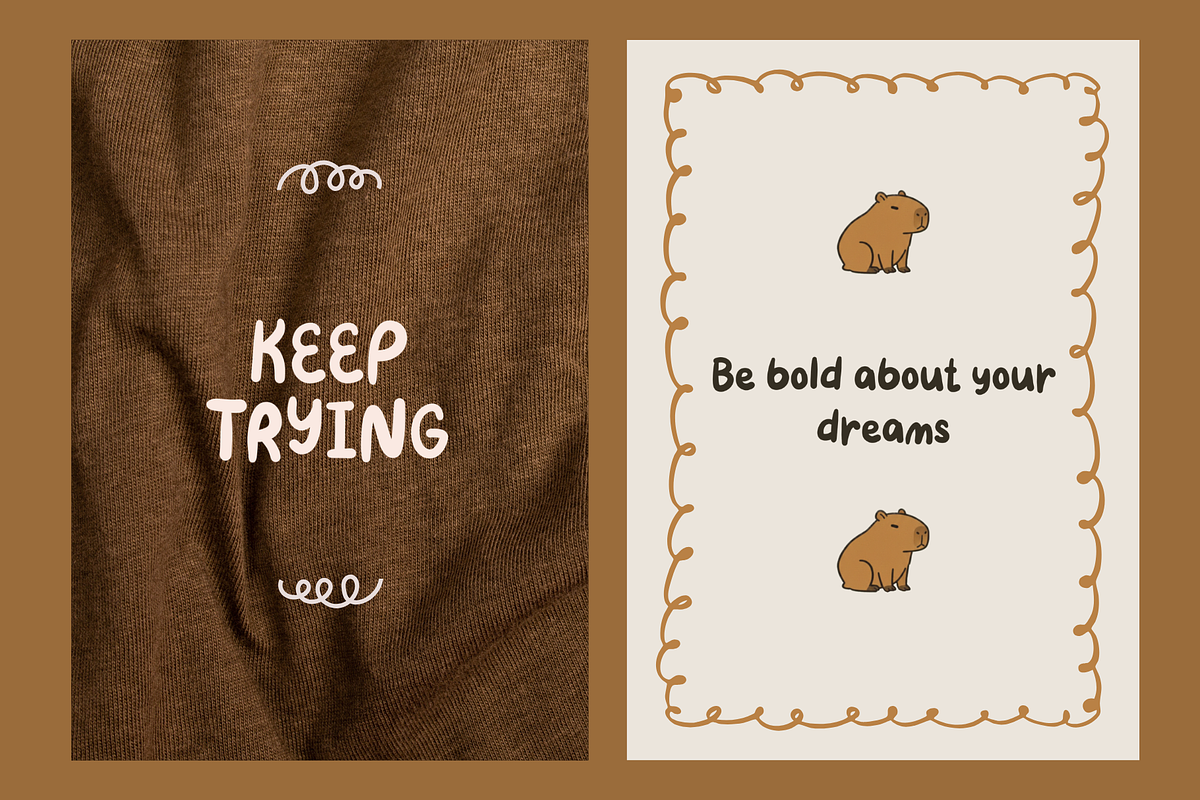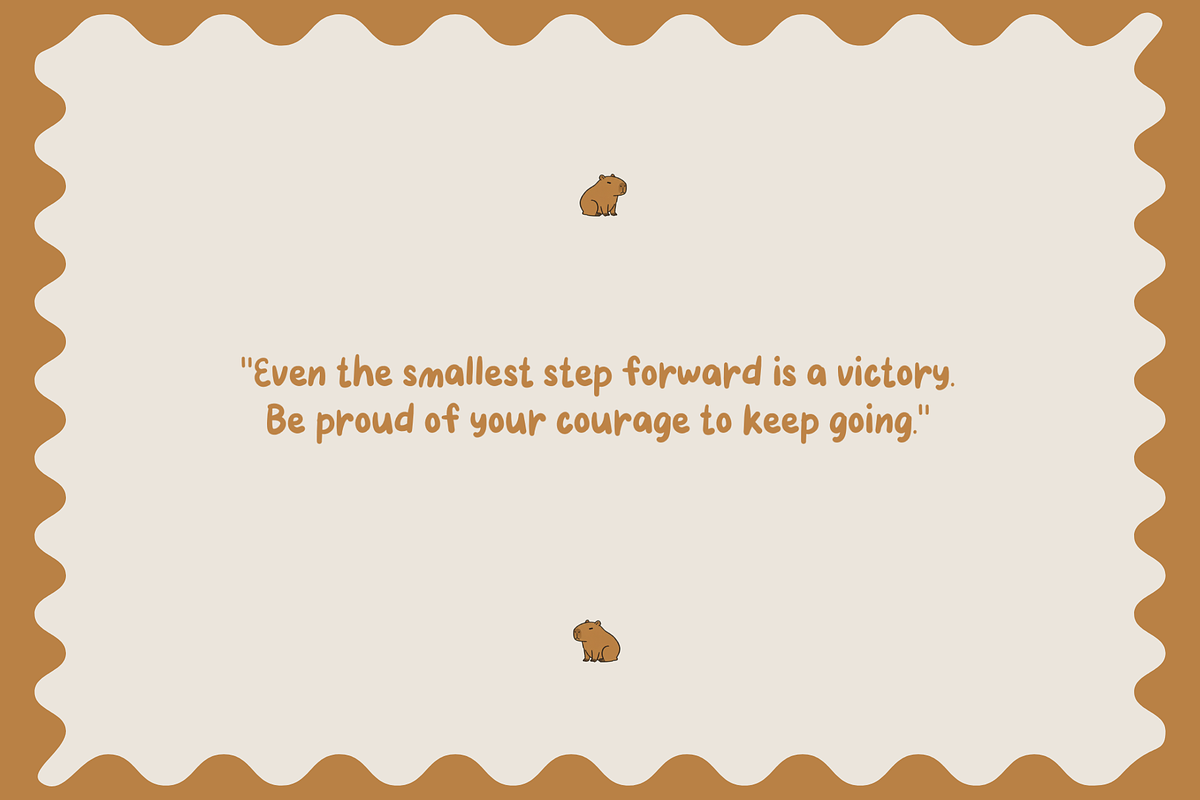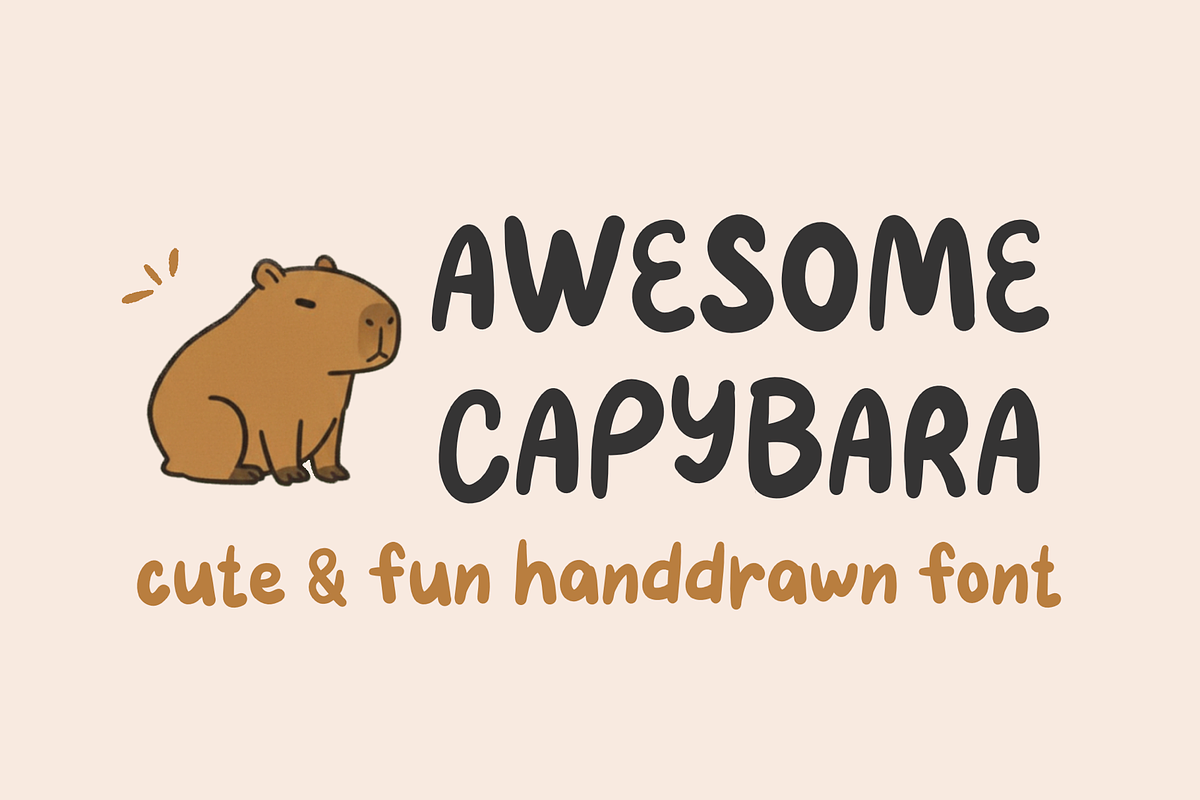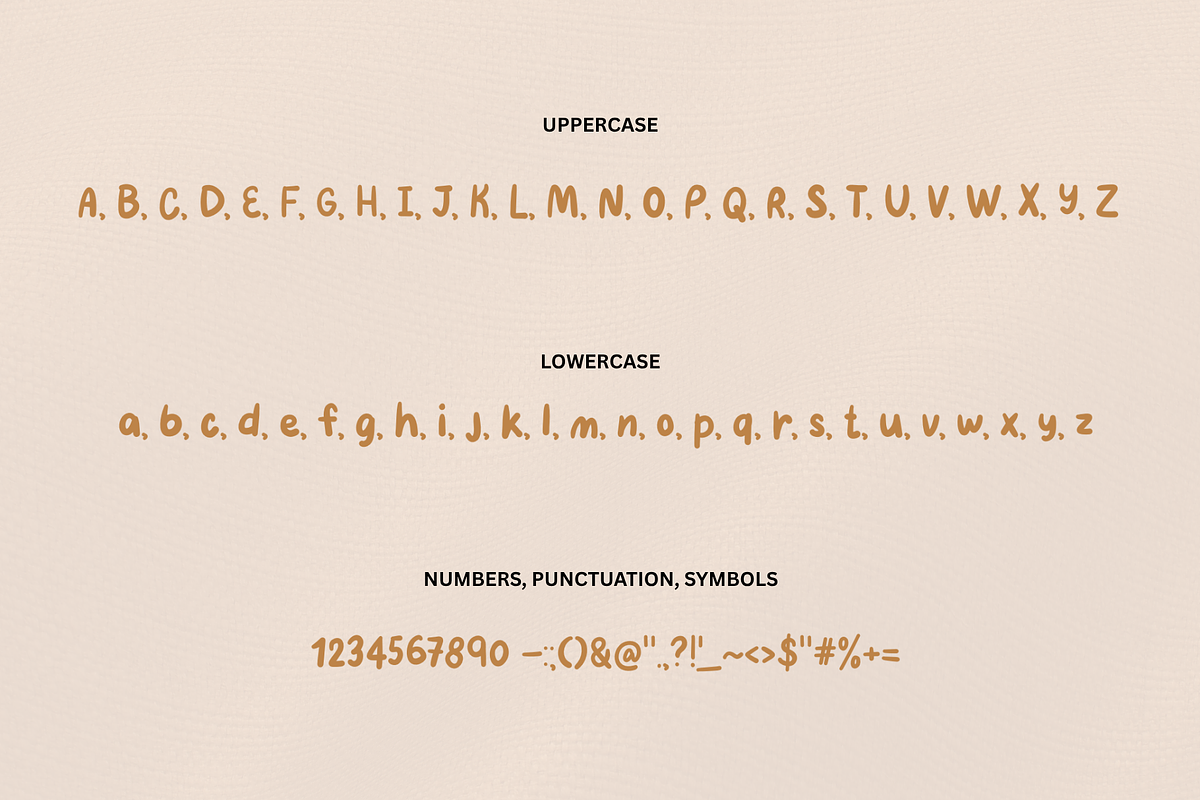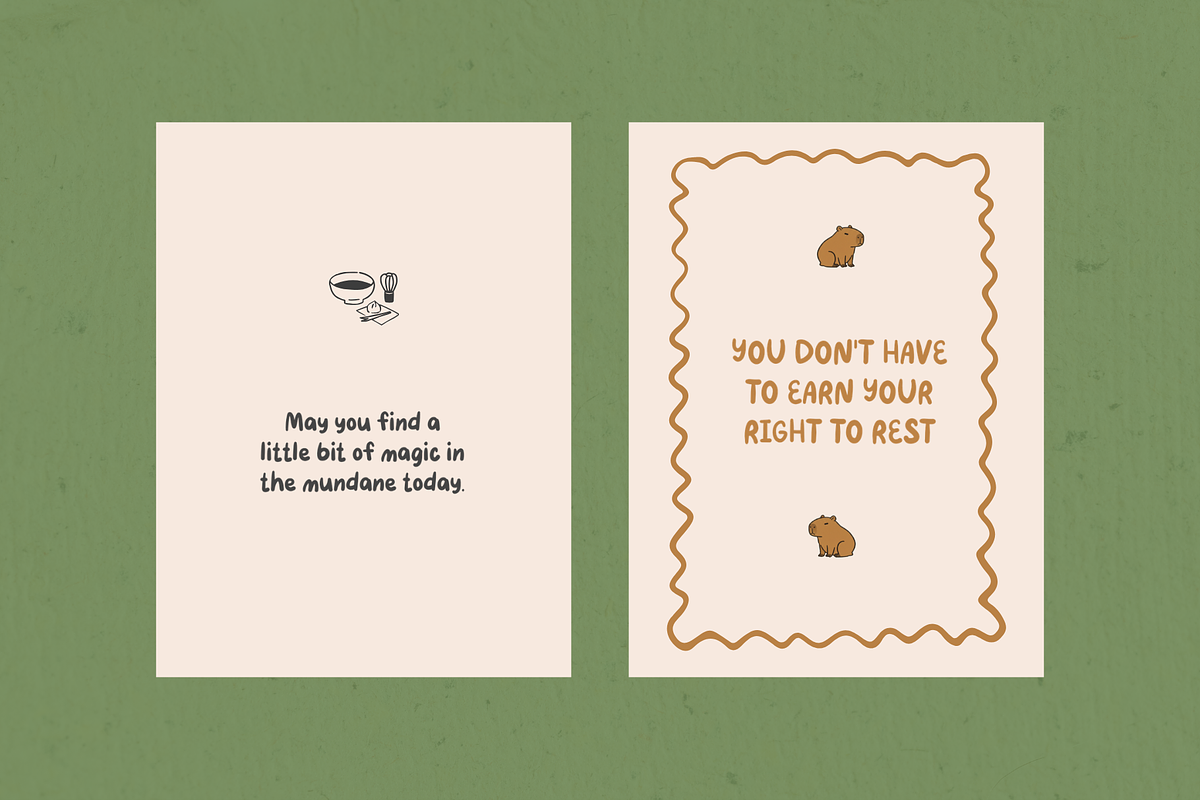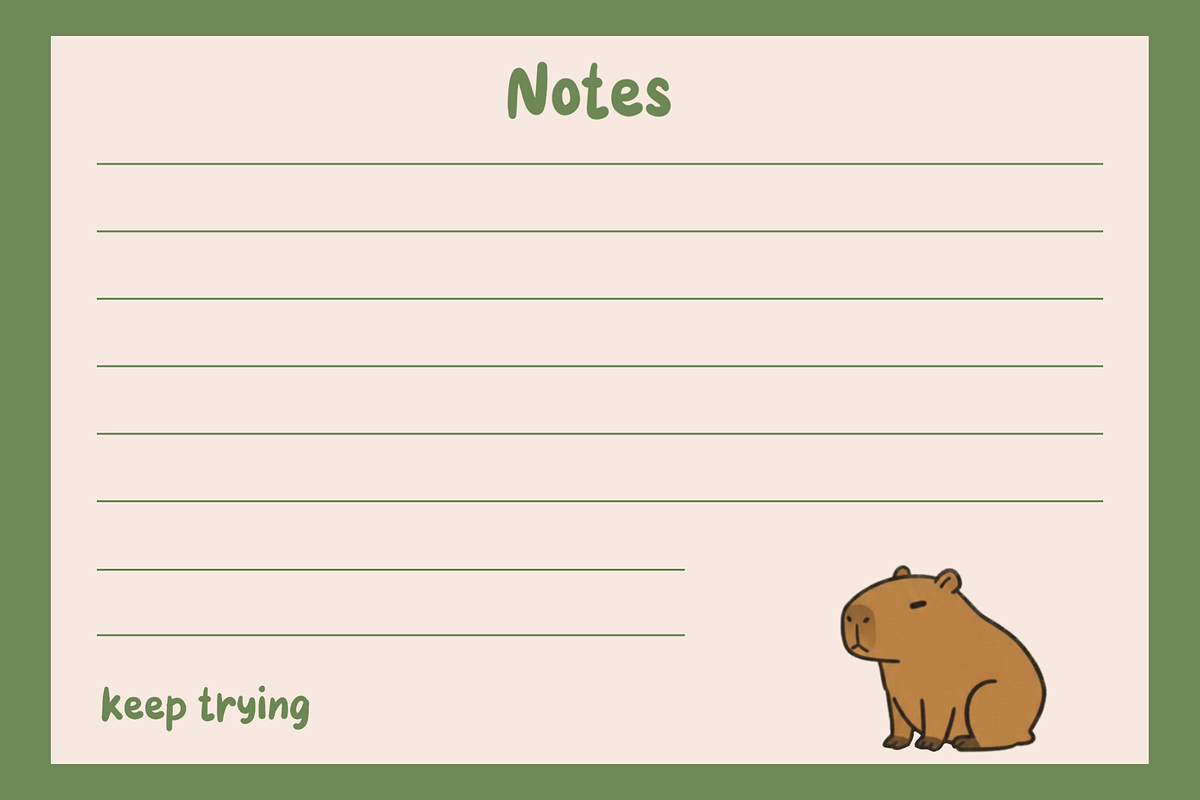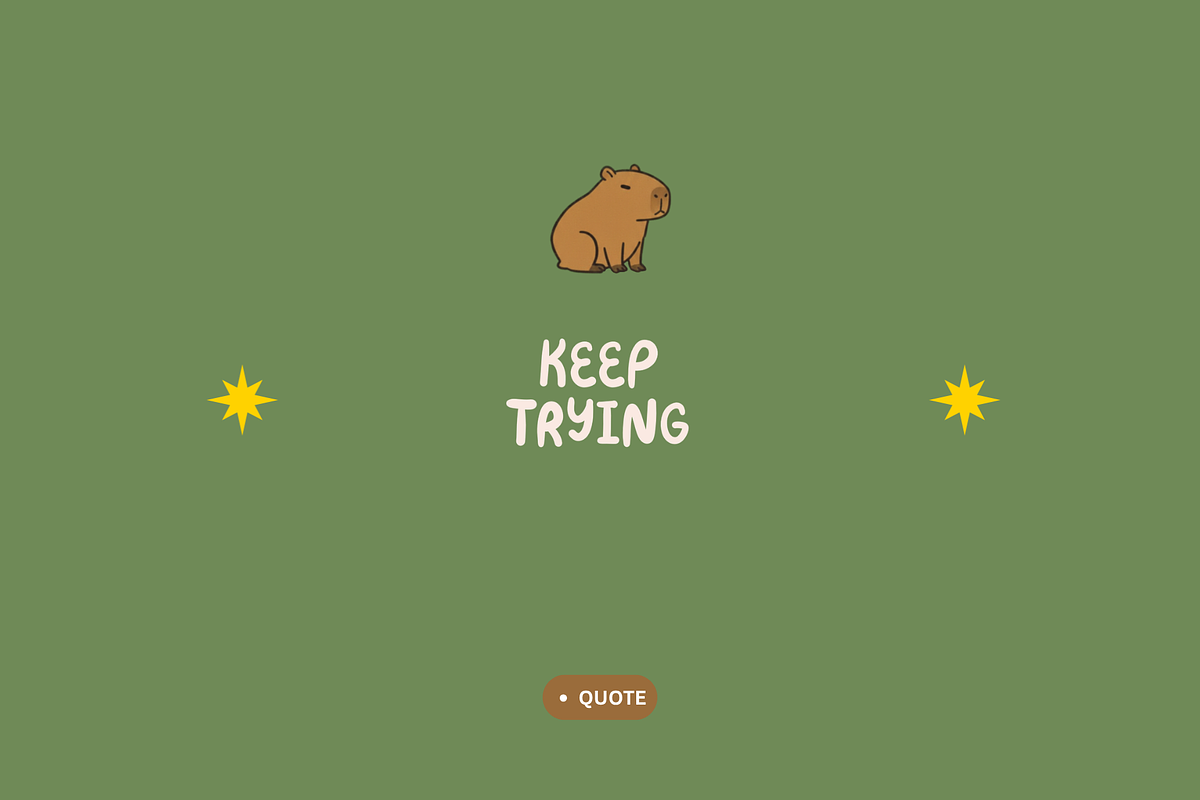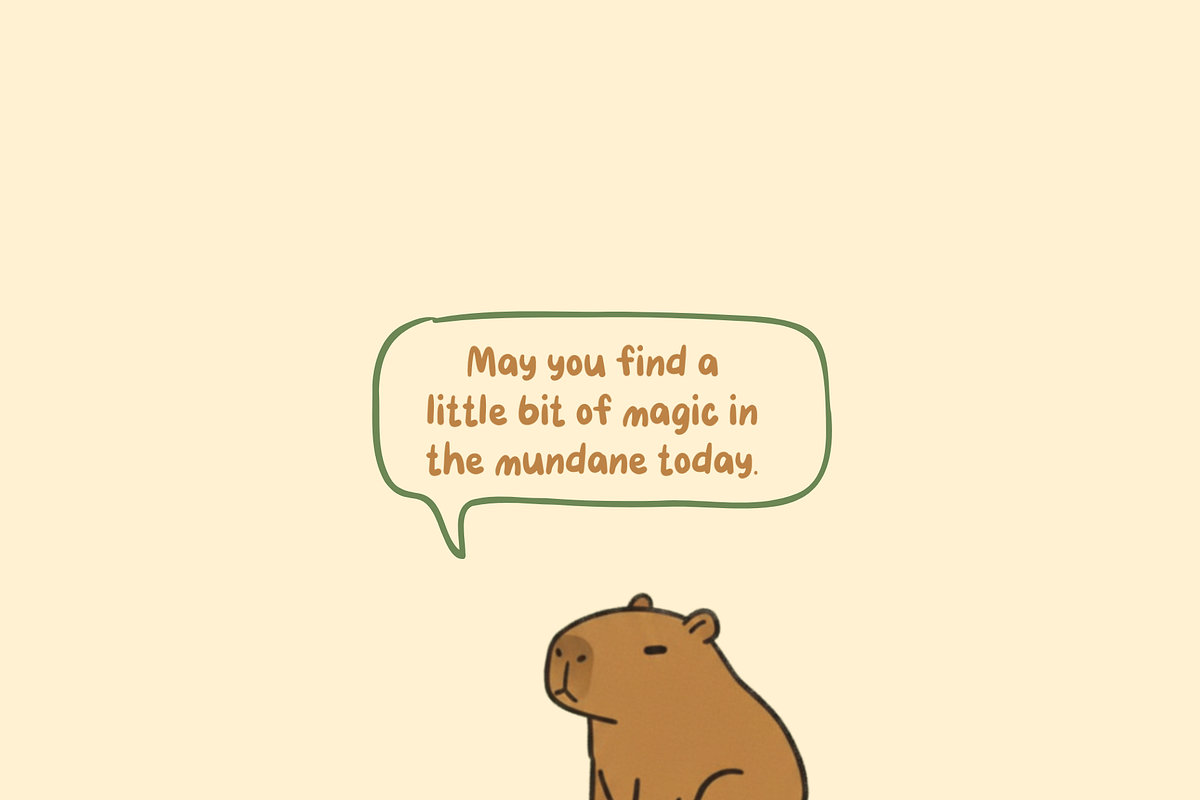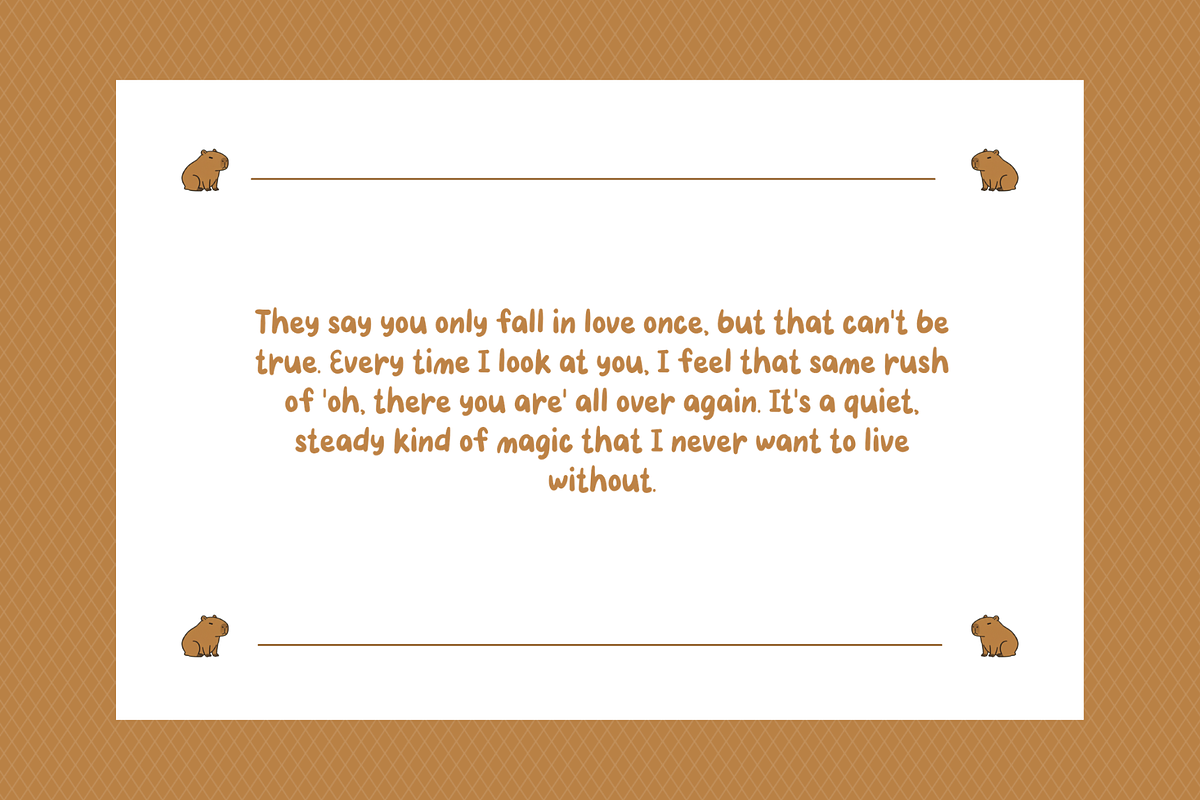
Awesome Capybara | Cozy & Playful
This hand-drawn font is designed to feel organic, approachable, and slightly whimsical. Whether you are creating digital planners, social media graphics, or cozy branding, this font brings a "human touch" that resonates with your audience.
Perfect for: poster design, prints, social media, kids room decor, logo, etc.